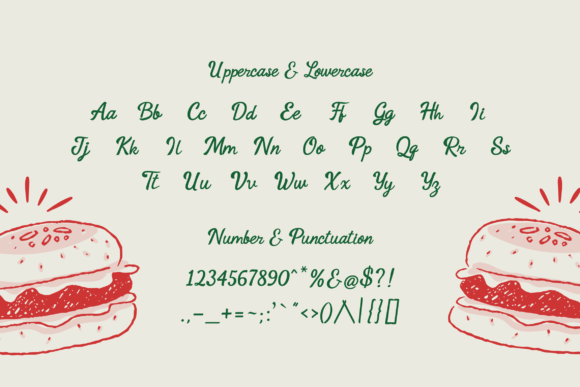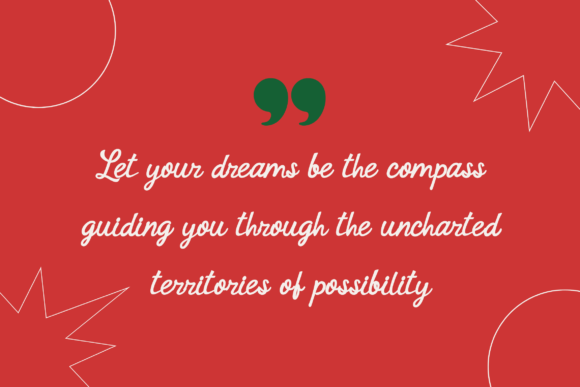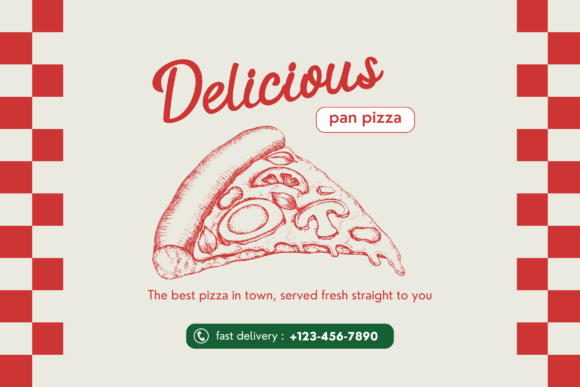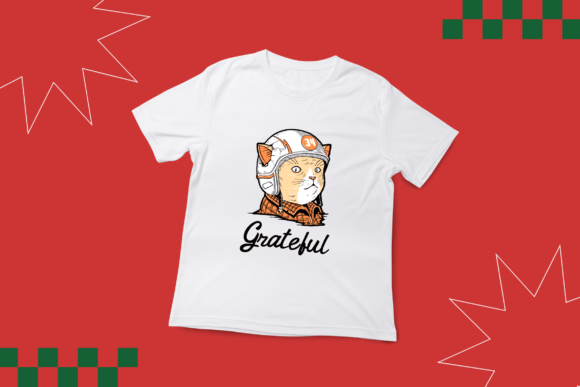
Discover the Charming Hatame Font: Adding a Personal Touch to Your Designs
Are you looking for a font that can add a warm and personal touch to your designs? Look no further than the Hatame Font. This charming handwritten font is perfect for creating invitations, greeting cards, and cozy branding projects that exude a sense of warmth and friendliness. In this article, we’ll explore the features and benefits of the Hatame Font and how it can elevate your designs to the next level.
The Characteristics of Hatame Font
Hatame Font is a beautifully crafted handwritten font that is designed to evoke the warmth and charm of a handwritten note on a sunny morning. Its gentle curves and friendly demeanor make it perfect for creating designs that are approachable, inviting, and heartfelt. The font features:
- Gentle Curves: Hatame Font features smooth, flowing curves that give it a soft and feminine touch.
- Handwritten Style: The font has a distinctly handwritten feel, making it perfect for creating personal and intimate designs.
- Friendly Demeanor: The font’s friendly and approachable style makes it ideal for creating designs that are welcoming and engaging.
Perfect for Invitations, Greeting Cards, and Branding Projects
Hatame Font is a versatile font that can be used for a variety of design projects. Its charming and personal style makes it perfect for:
- Invitations: Create beautiful and inviting invitations for weddings, parties, and special events.
- Greeting Cards: Design heartfelt and personalized greeting cards for birthdays, holidays, and other special occasions.
- Branding Projects: Use Hatame Font to create cozy and inviting branding projects, such as logos, packaging, and website designs.
Benefits of Using Hatame Font
There are many benefits to using Hatame Font in your designs. Some of the advantages include:
- Unique and Personal Style: Hatame Font adds a unique and personal touch to your designs, setting them apart from more traditional fonts.
- Emotional Connection: The font’s warm and friendly style helps to create an emotional connection with your audience, making your designs more relatable and engaging.
- Easy to Read: Despite its handwritten style, Hatame Font is easy to read and understand, making it perfect for body text and other long-form content.
Tips for Using Hatame Font Effectively
To get the most out of Hatame Font, here are some tips for using it effectively in your designs:
- Use it for Headings and Titles: Hatame Font is perfect for headings and titles, where its unique style can really shine.
- Pair it with Other Fonts: Experiment with pairing Hatame Font with other fonts to create a unique and visually appealing design.
In conclusion, Hatame Font is a charming and versatile font that can add a personal touch to your designs. Its gentle curves, friendly demeanor, and handwritten style make it perfect for creating invitations, greeting cards, and cozy branding projects. With its unique and personal style, Hatame Font is sure to help you create designs that stand out from the crowd and connect with your audience on an emotional level.